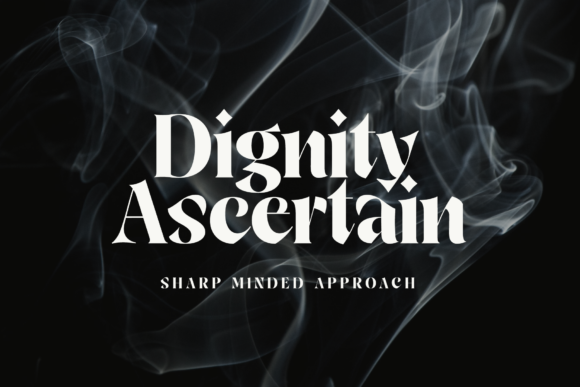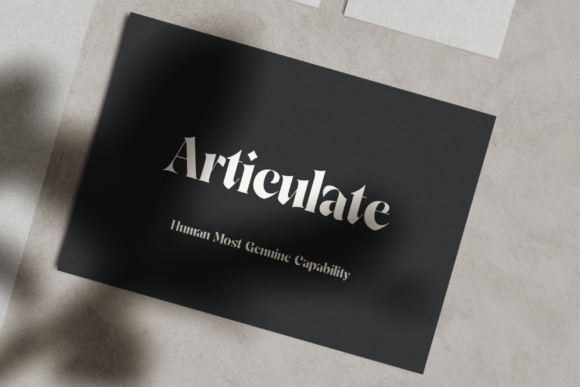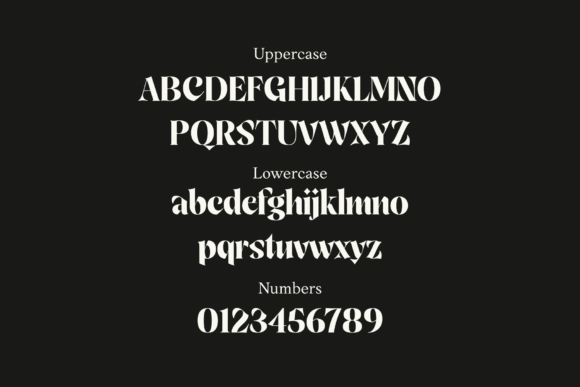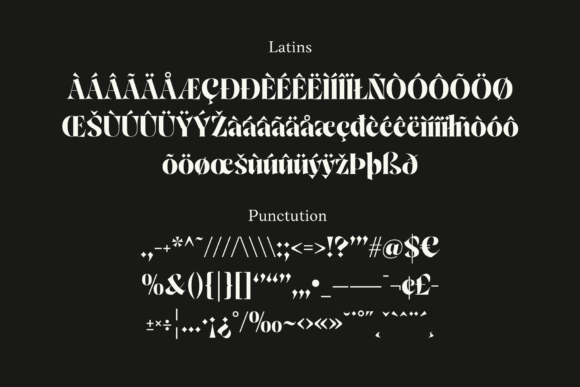
Introduction to Sandor Font
Sandor is a trendy, thick lettered, and genuine serif font.
It is the best choice for creating eye-catching logos, branding, and quotes Every letter has a unique and beautiful touch, which will make your design come alive.
Key Features of Sandor Font